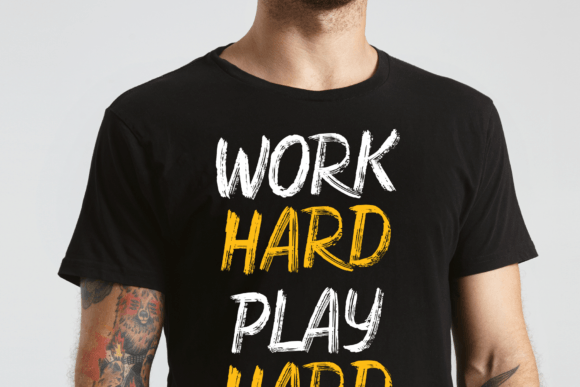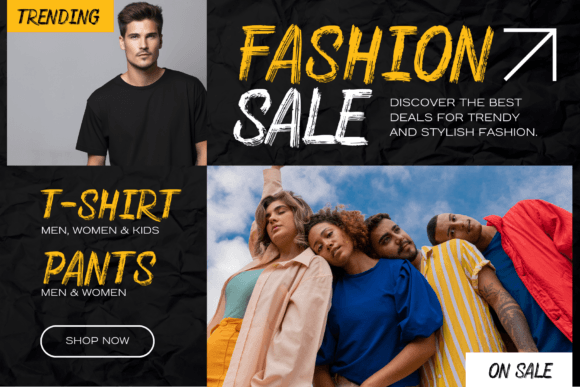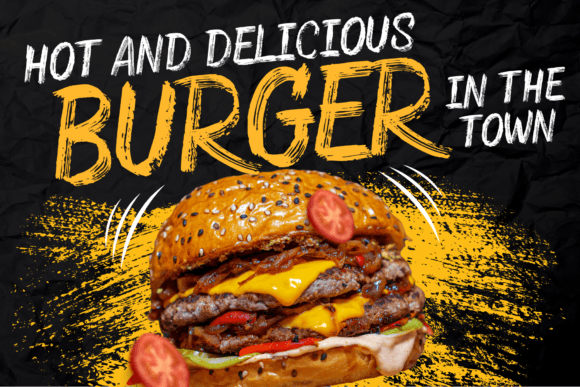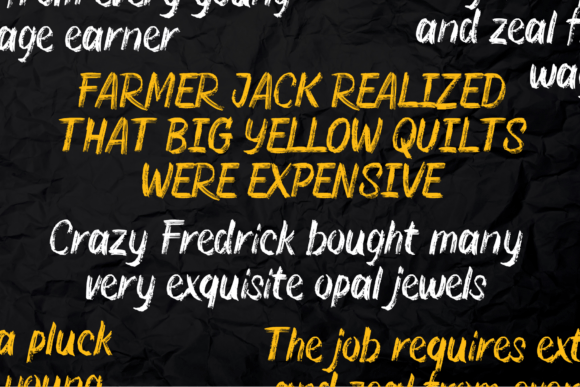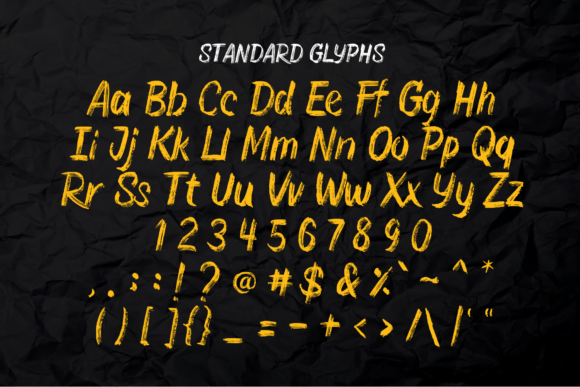
Introducing Dead Brush Font: A Timeless Handwritten Brush Font for Creative Designs
Are you a designer or crafter looking for a unique and beautiful font to elevate your creative projects? Look no further than Dead Brush Font, a lovely and timeless handwritten brush font that’s perfect for creating eye-catching logos, branding, and quotes. With its distinctive and artistic touch, Dead Brush Font is sure to make your designs come alive!
What Makes Dead Brush Font Special?
Dead Brush Font is a one-of-a-kind font that boasts a unique and beautiful touch. Every letter has been carefully crafted to showcase a distinctive character, making it perfect for designs that require a personal and creative flair. Whether you’re working on a logo, branding project, or quote, Dead Brush Font is the ideal choice for adding a touch of elegance and sophistication.
Dead Brush Font is incredibly versatile and can be used for a wide range of creative projects. Here are just a few ideas to get you started:
- Logos: Create a memorable and eye-catching logo for your business or brand with Dead Brush Font.
- Branding: Use Dead Brush Font to add a touch of personality and elegance to your branding materials, such as business cards, brochures, and letterheads.
- Quotes: Add a touch of inspiration and motivation to your quotes with Dead Brush Font, perfect for social media posts, posters, and flyers.
- Stationery: Use Dead Brush Font to create beautiful and unique stationery, such as wedding invitations, thank-you cards, and gift tags.
Why Choose Dead Brush Font?
With so many fonts available, why choose Dead Brush Font? Here are just a few reasons why designers and crafters love this font:
- Unique and Beautiful: Dead Brush Font has a distinctive and artistic touch that sets it apart from other fonts.
- Timeless: Unlike trendy fonts that quickly go out of style, Dead Brush Font is a timeless font that will remain stylish and elegant for years to come.
- Easy to Read: Despite its artistic touch, Dead Brush Font is easy to read and understand, making it perfect for designs that require a clear and concise message.
- Versatile: Dead Brush Font can be used for a wide range of creative projects, from logos and branding to quotes and stationery.
Tips for Using Dead Brush Font
To get the most out of Dead Brush Font, here are a few tips to keep in mind:
- Use it sparingly: While Dead Brush Font is beautiful, it can be overwhelming if used too much. Use it sparingly to add a touch of elegance and sophistication to your designs.
- Experiment with colors: Dead Brush Font looks stunning in a variety of colors, so don’t be afraid to experiment and find the perfect hue for your design.
- Pair it with other fonts: Dead Brush Font pairs beautifully with other fonts, so try combining it with a sans-serif font for added contrast and visual interest.
Dead Brush Font is a beautiful and timeless handwritten brush font that’s perfect for designers and crafters looking to add a touch of elegance and sophistication to their creative projects. With its unique and artistic touch, Dead Brush Font is sure to make your designs come alive! Whether you’re working on a logo, branding project, or quote, Dead Brush Font is the ideal choice for creating eye-catching and memorable designs.